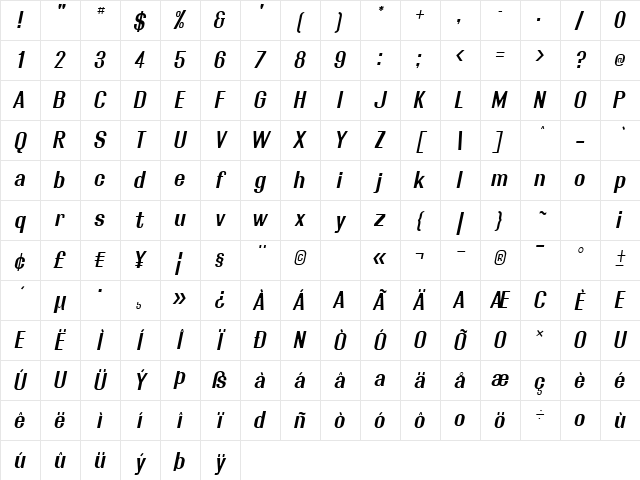
Rollout Semibold Oblique Free Font
Rollout Semibold Oblique
Style: Semibold Oblique
Design Context for Rollout
Rollout is a composed and adaptable typeface that performs quietly and consistently across a wide range of design contexts. The slanted form adds forward momentum and visual energy. Its bold stroke weight gives it real presence on the page.
Pro Tip: Use Rollout for emphasis, pull quotes, and subheadings where its slanted energy can add rhythm to the layout.